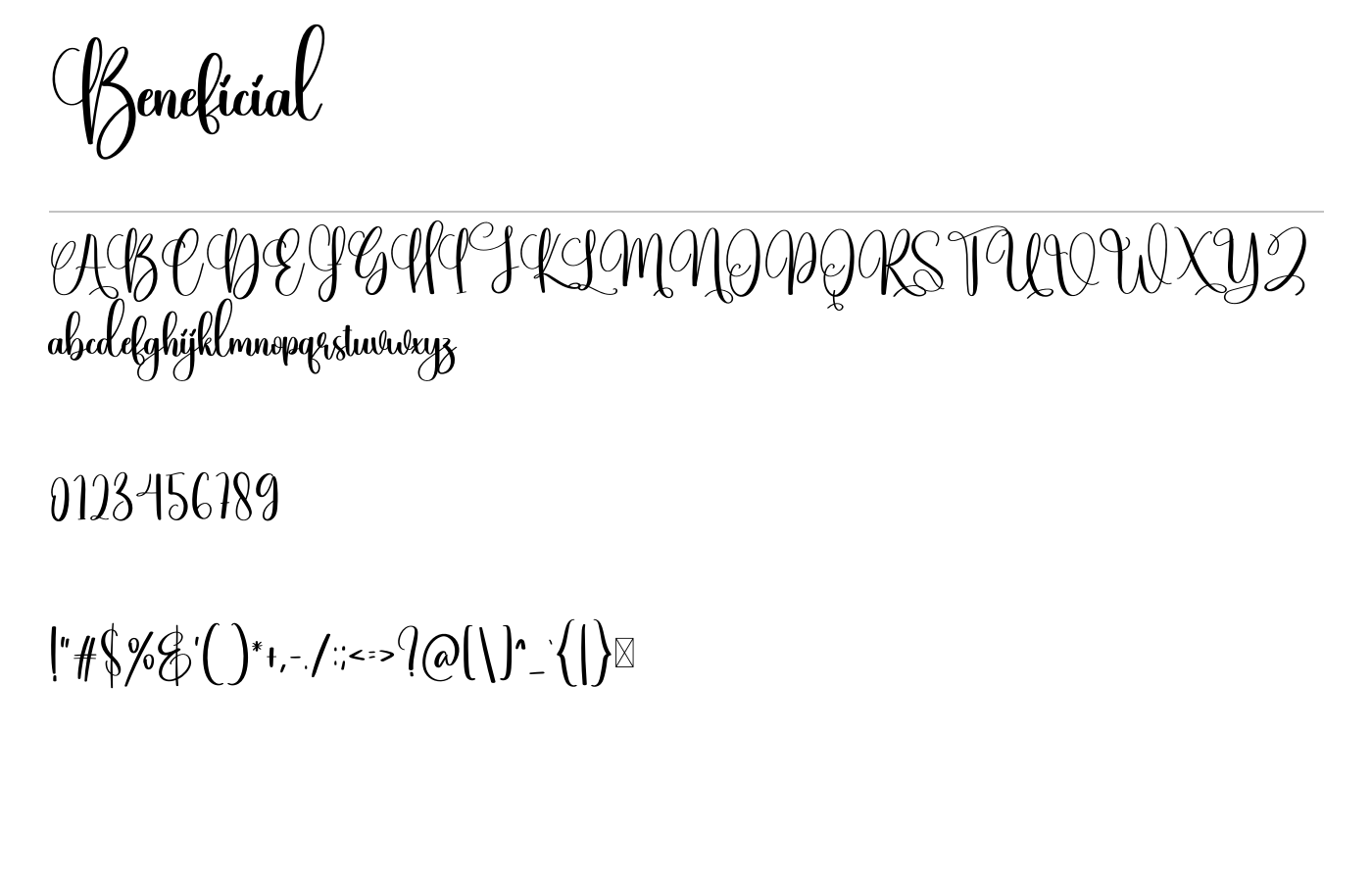
Beneficial Font is an elegant, delicate script typeface with tall, flowing uppercase letters and smooth, connected lowercase forms that create a graceful, handwritten look. Its thin strokes and playful swashes give it a sophisticated yet friendly personality, making it perfect for wedding invitations, branding, and editorial designs that need a touch of charm and refinement. This font shines best in headlines and decorative uses where its detailed letterforms can be fully appreciated.
Beneficial Font
About Beneficial Font